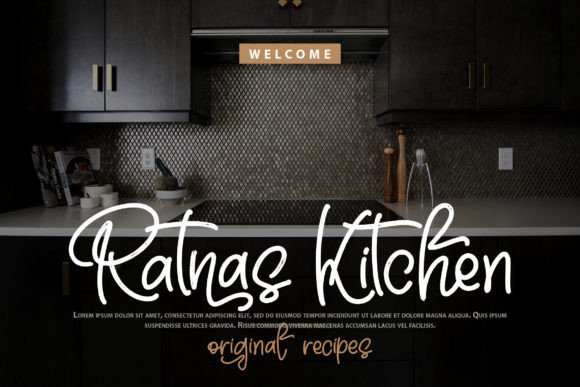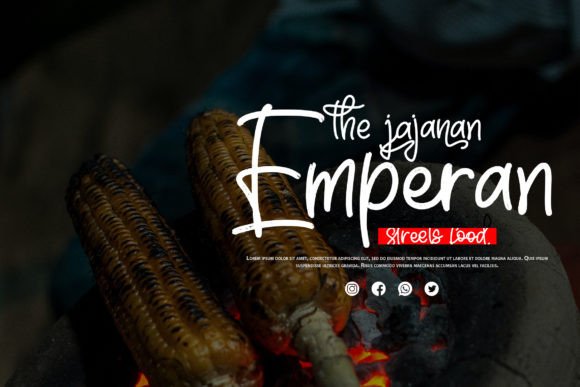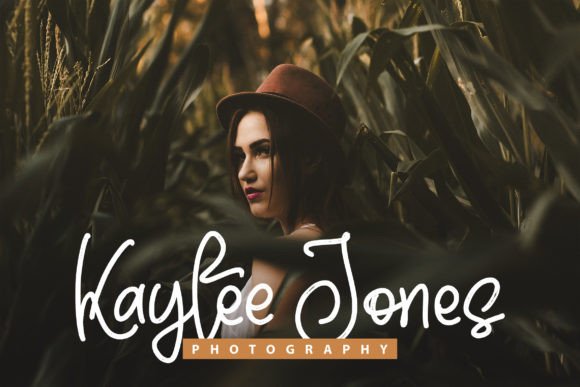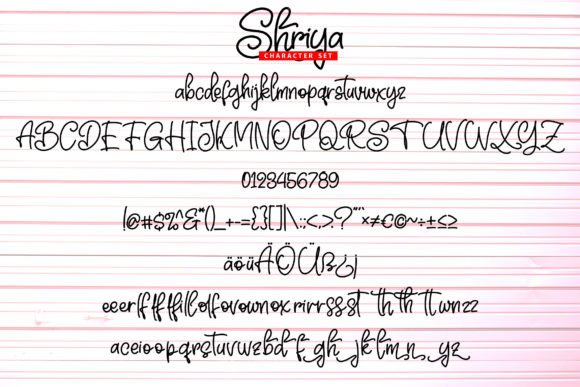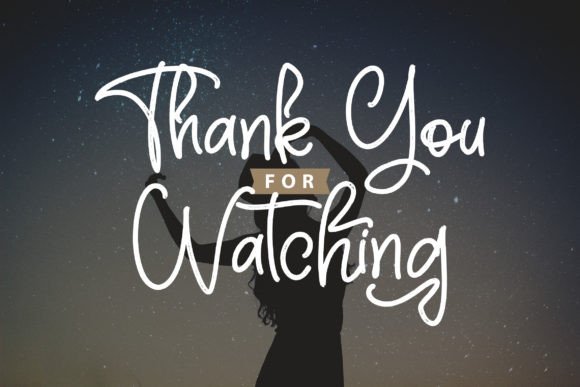
Introduction to Shriya Font
There’s something magical about the first spark of creativity that hits you – the moment when an idea starts to take shape, and you can’t wait to bring it to life. For designers, this spark often begins with the perfect font. And if you’re looking to add a touch of luxury and elegance to your next project, you’re in luck. Say hello to the stunning Shriya Font, a beautiful and light handwritten font that’s sure to leave a lasting impression.
Key Features of Shriya Font
- High-quality, elegant script font perfect for creative projects and design resources.
- Unique characteristics include a flowing, cursive style and a wide range of ligatures, making it perfect for titles, headings, and other creative applications.
Honest Review: Shriya Font
As a designer, I’ve had the pleasure of working with numerous fonts for my creative projects. Recently, I stumbled upon the Shriya Font, and I’m excited to share my honest review with you.
- ✨ High quality design that’s perfect for creative projects
- ⚠️ Limited font sizes, which might require some adjustments for larger or smaller text
- ⚠️ Not as versatile as some other fonts, which might limit its use in specific design scenarios
Overall, I’m impressed with the Shriya Font. Its high quality design and free download option make it a valuable resource for designers. While it has some limitations, it’s still a great addition to any design arsenal.
Tips for Getting the Most Out of Shriya Font
For optimal results, use the font with a transparent background to create a clean and modern design aesthetic. Experiment with different font sizes and styles to achieve the desired visual impact.